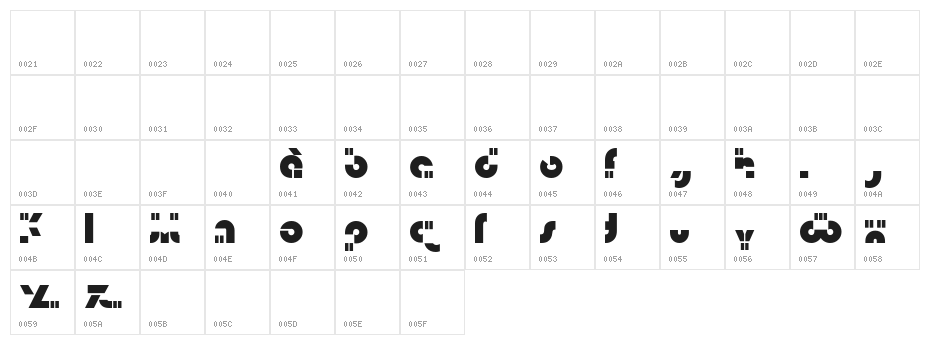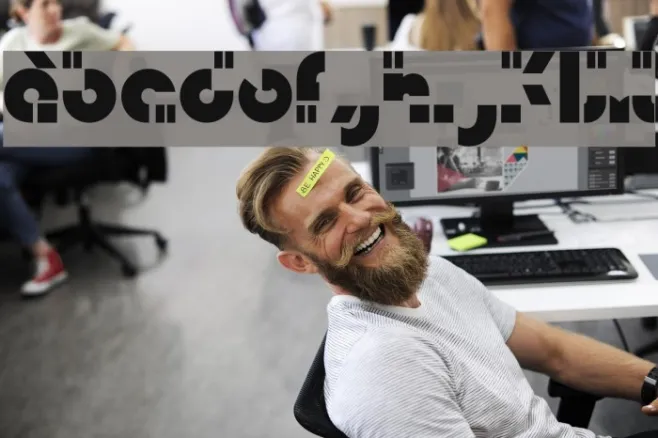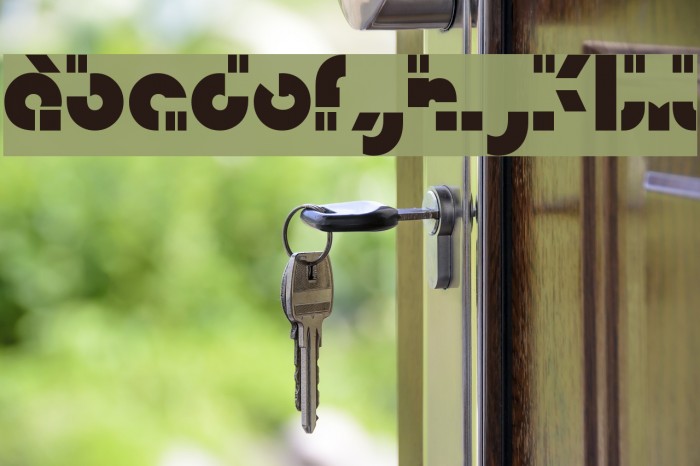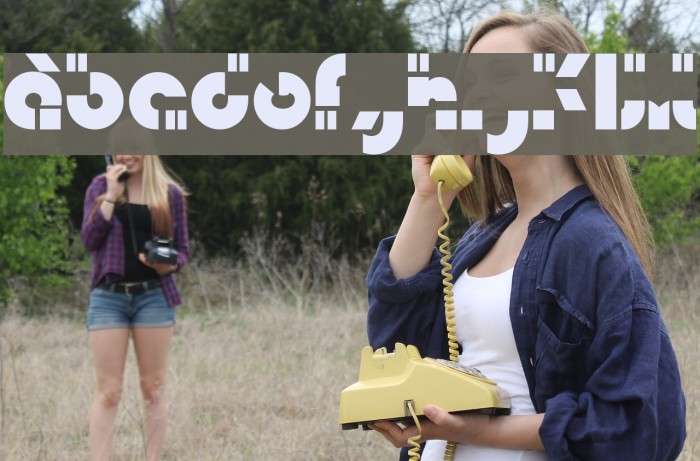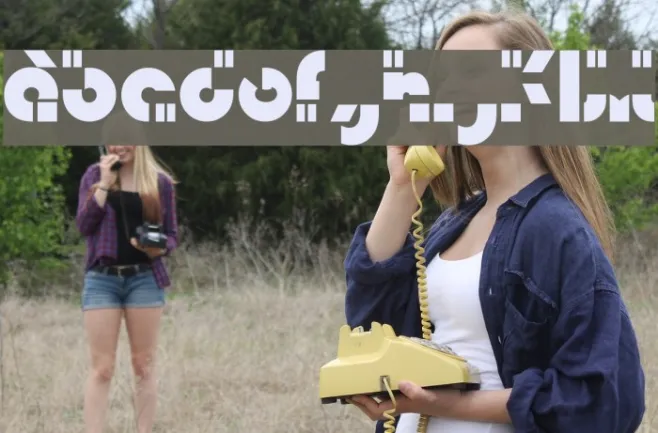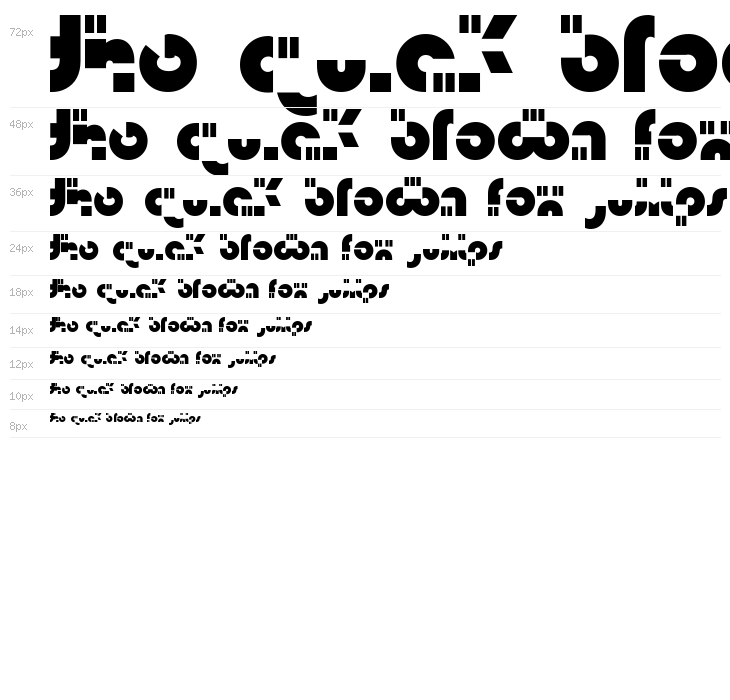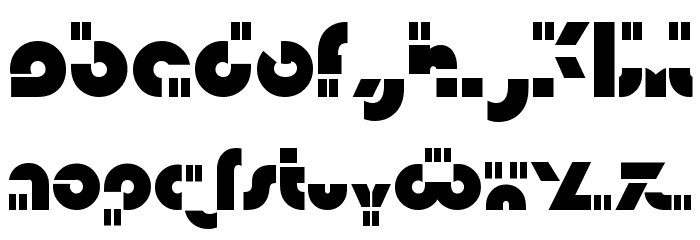
Isamu Font
Isamu Description
This font features a bold and geometric design with a futuristic flair. Each character is constructed with thick, solid shapes that create a sense of weight and presence. The letters are highly stylized, incorporating unique cuts and angles that give them a distinct, modern appearance. The overall aesthetic is reminiscent of digital or sci-fi themes, making it ideal for projects that require a strong visual impact. The uppercase and lowercase letters maintain a consistent style, while the numerals and special characters blend seamlessly into the font's overall design.
| Overall Style | Futuristic, Modern |
| Proposed Projects | Ideal for sci-fi themed posters, video game graphics, tech branding, and futuristic designs. |